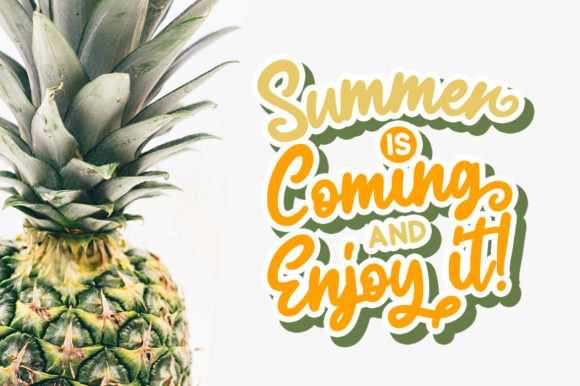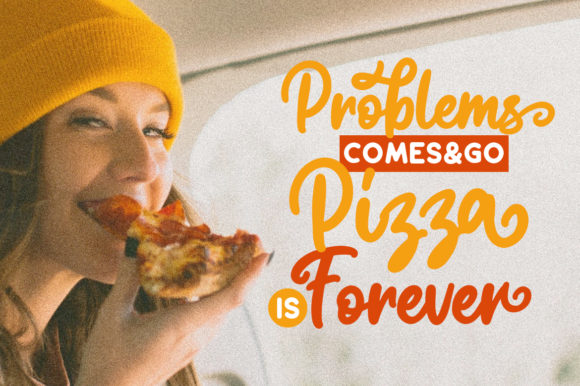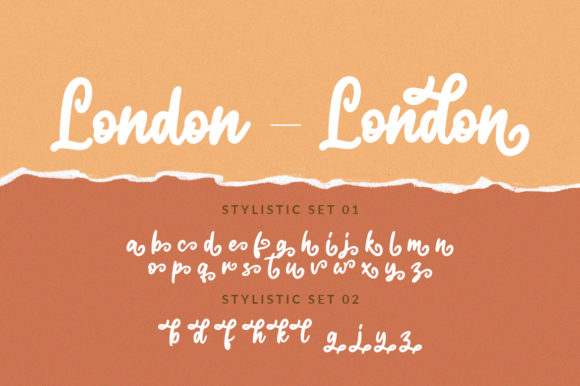
Introduction to Regitta Font Font
Fonts play a crucial role in design, and the Regitta Font font is a typeface that brings both character and versatility to any project. Whether you’re working on a branding project, a website, or a print design, the Regitta Font font offers a unique style that can elevate your work.
| 📌 Font Name | Regitta Font |
| 👤 Author | Weape Design |
Regitta is a sweet, soft hand-lettered handwritten font.
The playful rounded characters make it the perfect font for creating stunning crafts Get inspired by its authentic feel and use it to create gorgeous wedding invitations, beautiful stationary art, eye-catching social media posts, and cute greeting cards.
Key Features of Regitta Font Font
Why Choose Regitta Font Font?
The Regitta Font font is more than just a typeface – it’s a design tool that helps you communicate your message with style and clarity. Its unique character set and versatile design make it suitable for a wide range of applications, from elegant invitations to bold headlines.
With its carefully crafted letterforms and balanced proportions, the Regitta Font font ensures readability and visual appeal across all mediums.
What makes Regitta Font font special?
The Regitta Font font stands out with its unique design, exceptional readability, and versatility across various design applications.